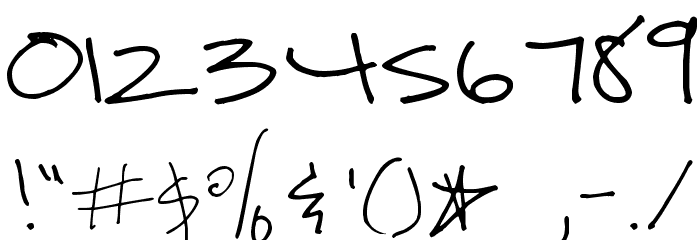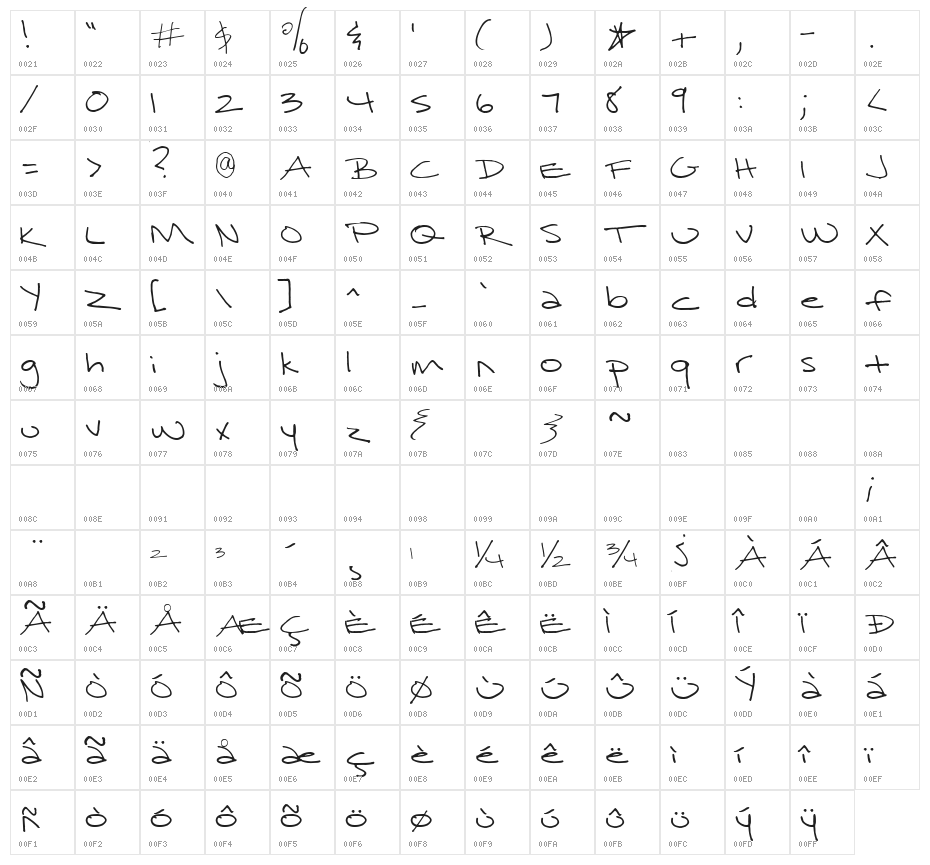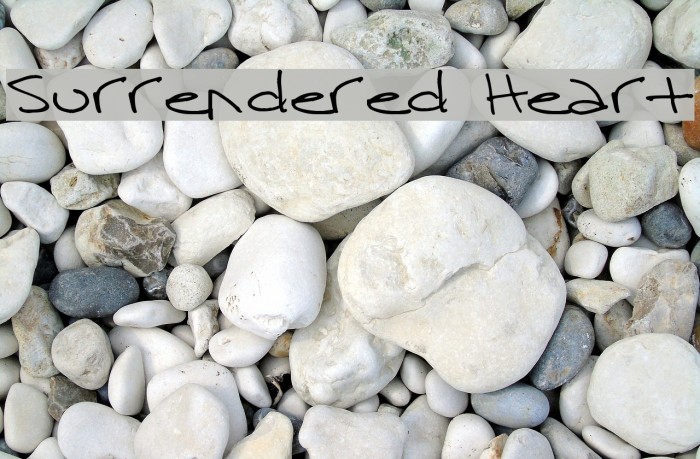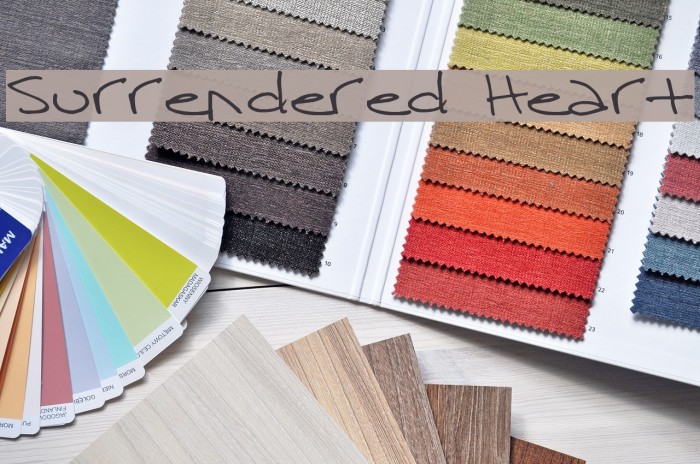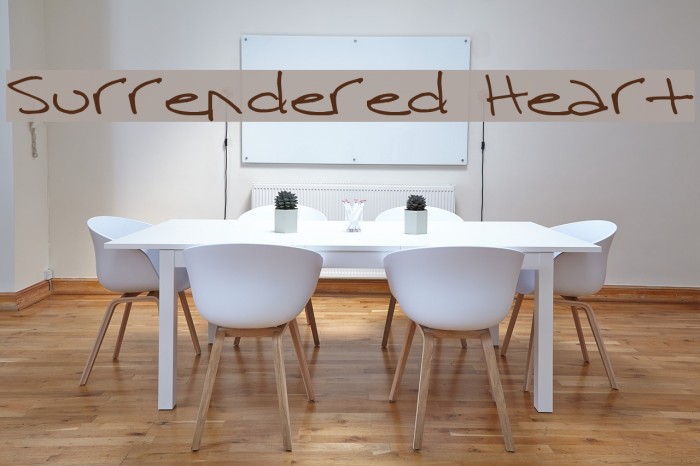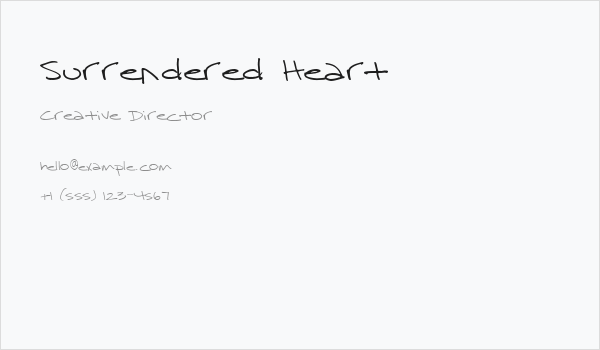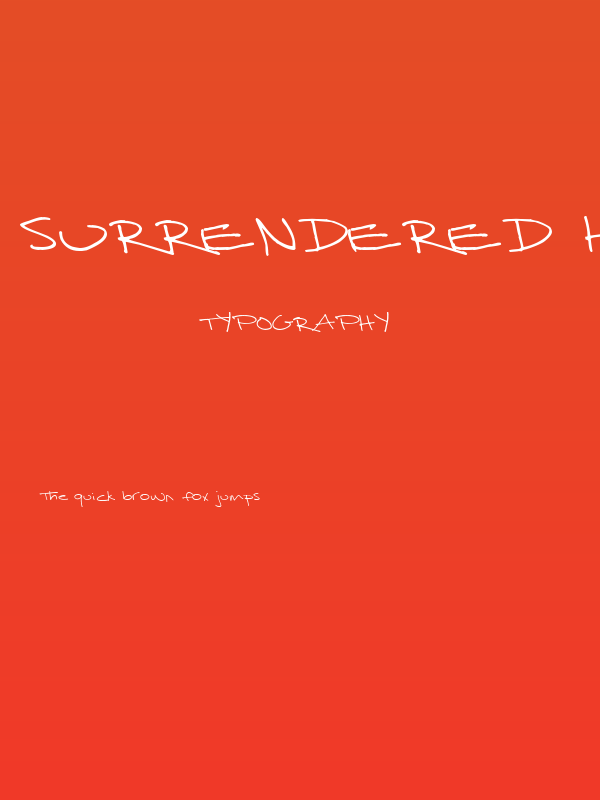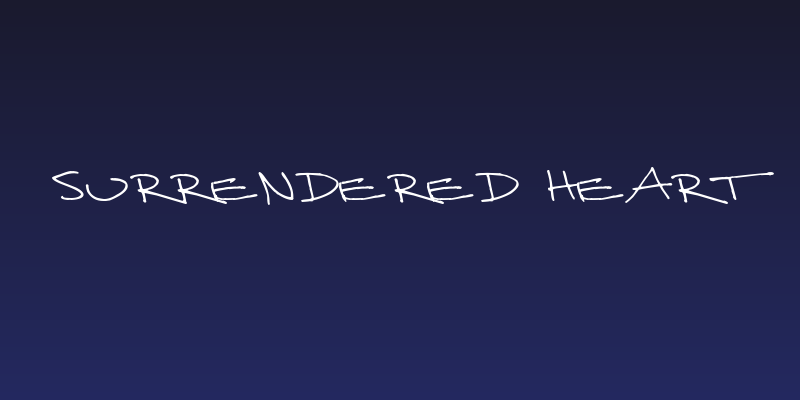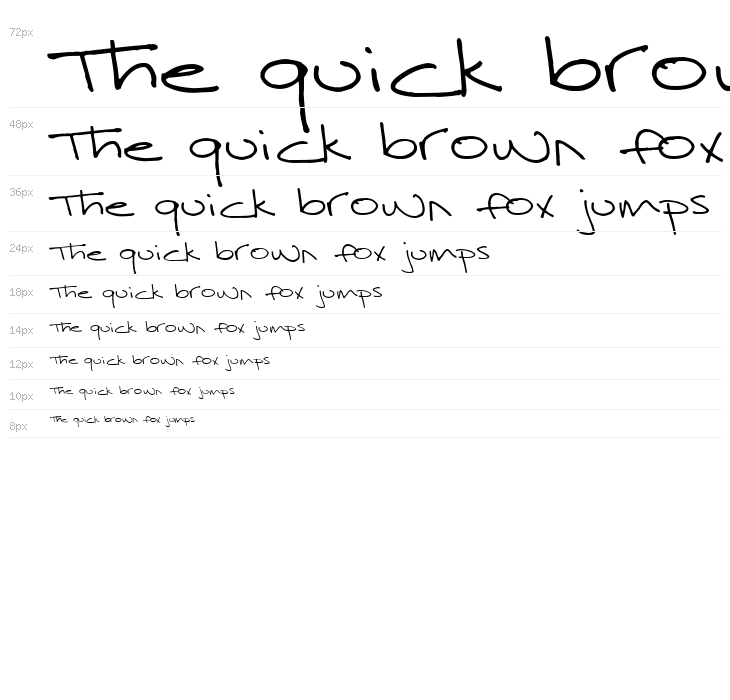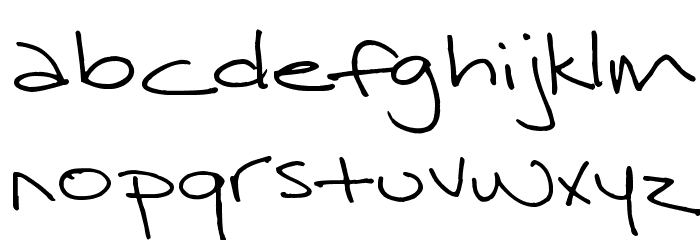
Surrendered Heart Font
Surrendered Heart Description
This font exudes a casual, handwritten style with a playful and informal character. The strokes are uneven and slightly irregular, mimicking the natural flow of handwriting. The letters are connected in a loose manner, giving it a relaxed and approachable feel. The uppercase letters maintain a consistent height, while the lowercase letters vary slightly, adding to the organic look. The numbers and special characters follow the same handwritten aesthetic, ensuring a cohesive appearance across all elements. This font is perfect for projects that require a personal touch or a creative flair.